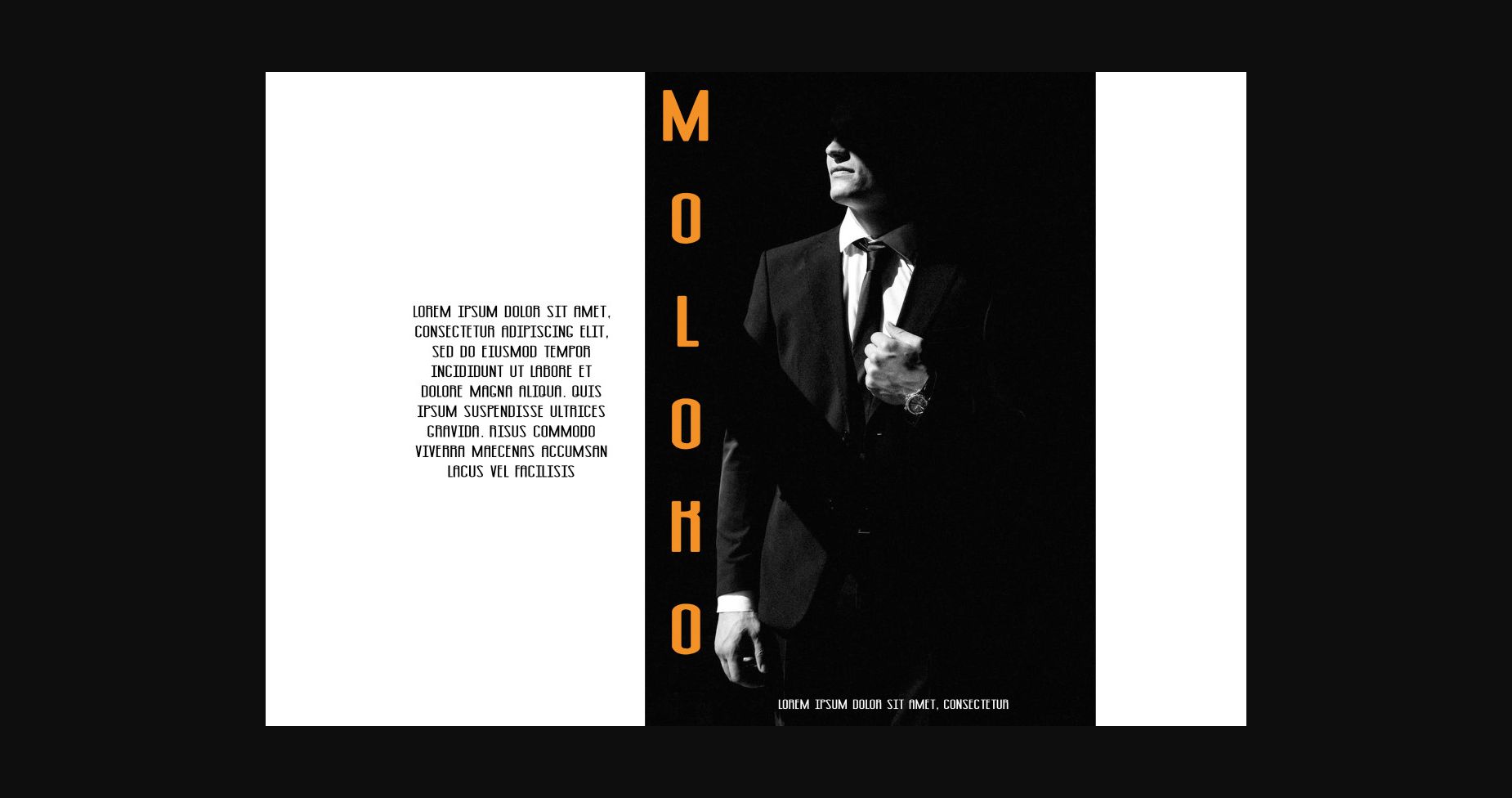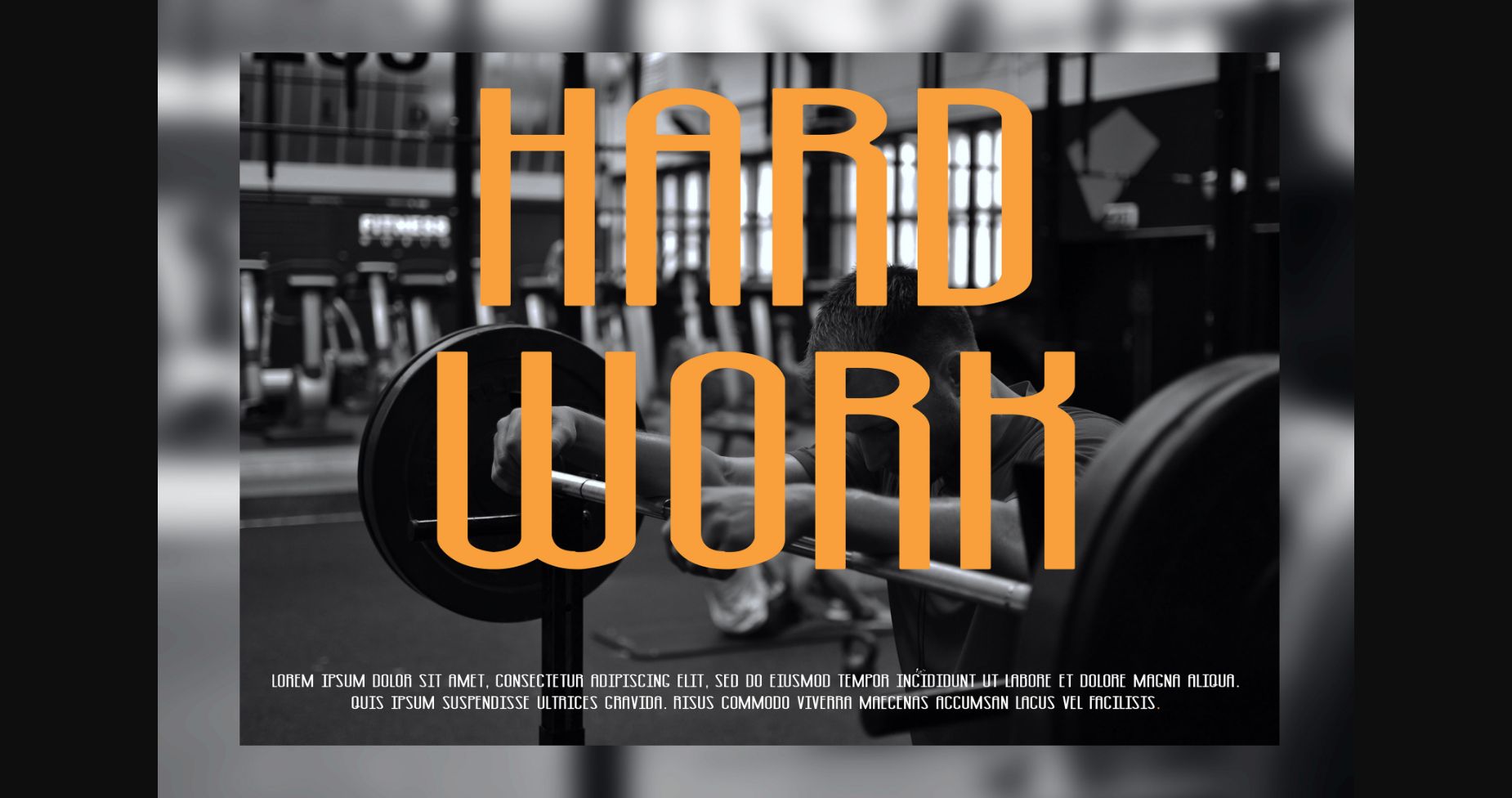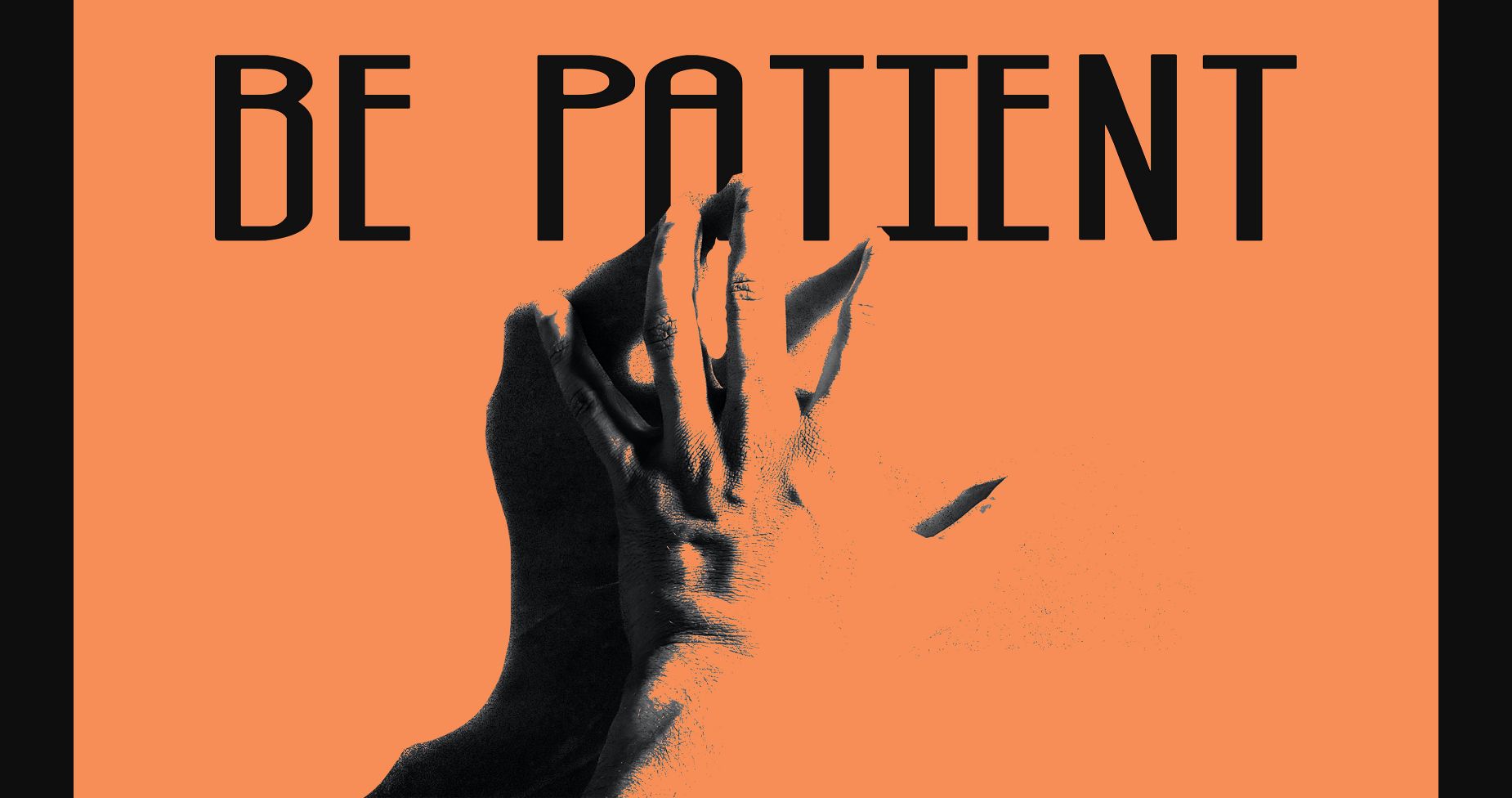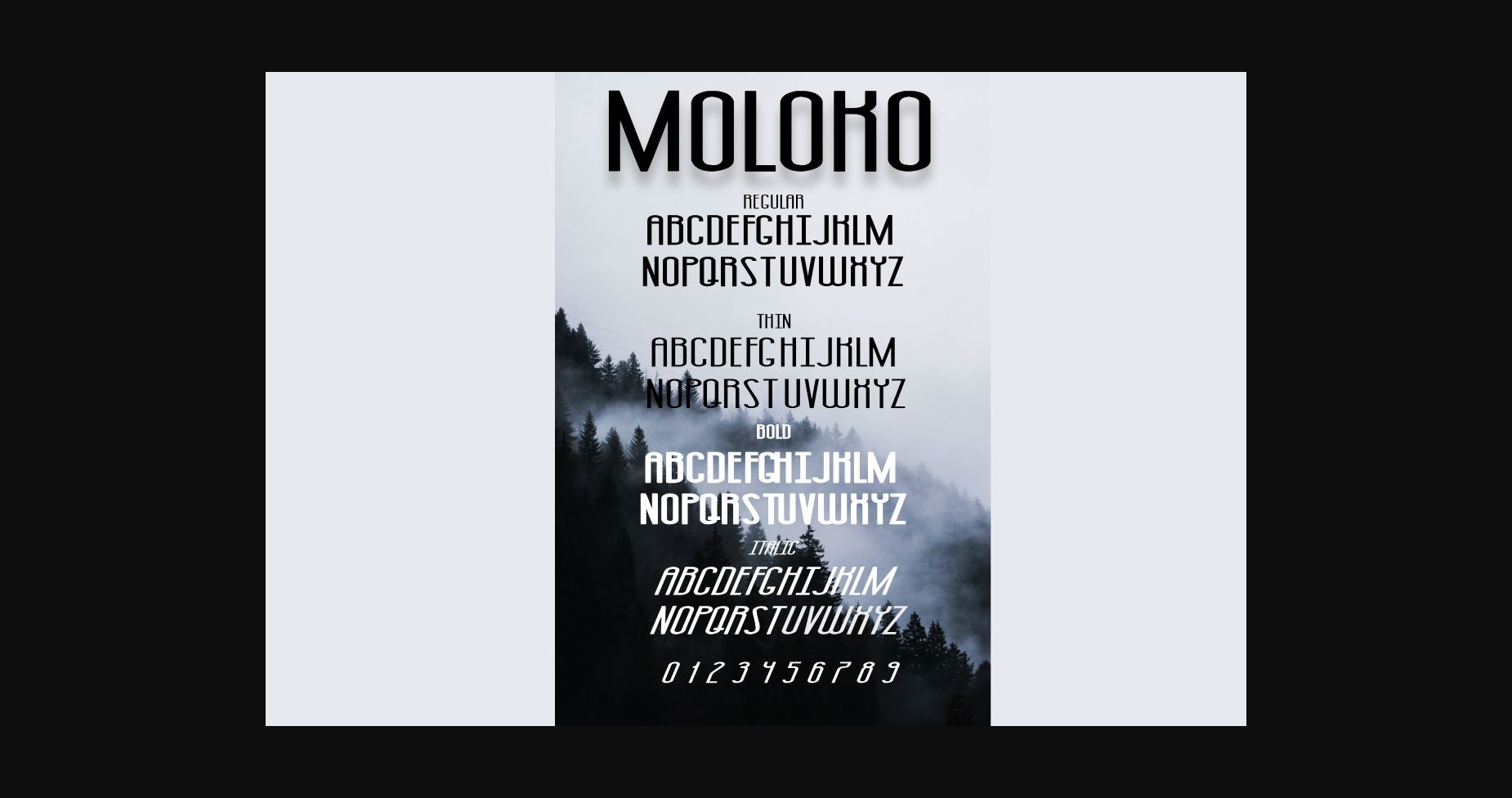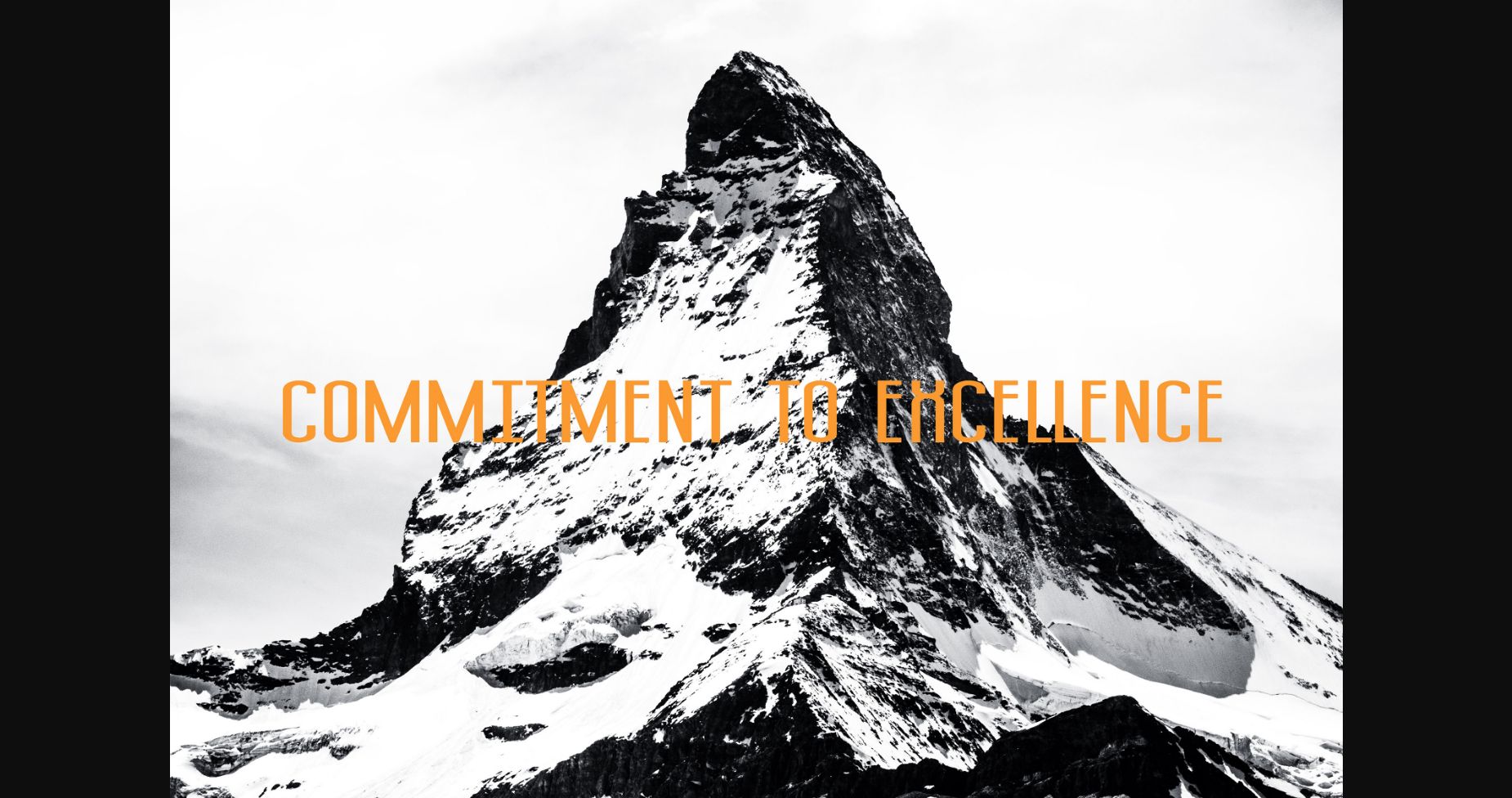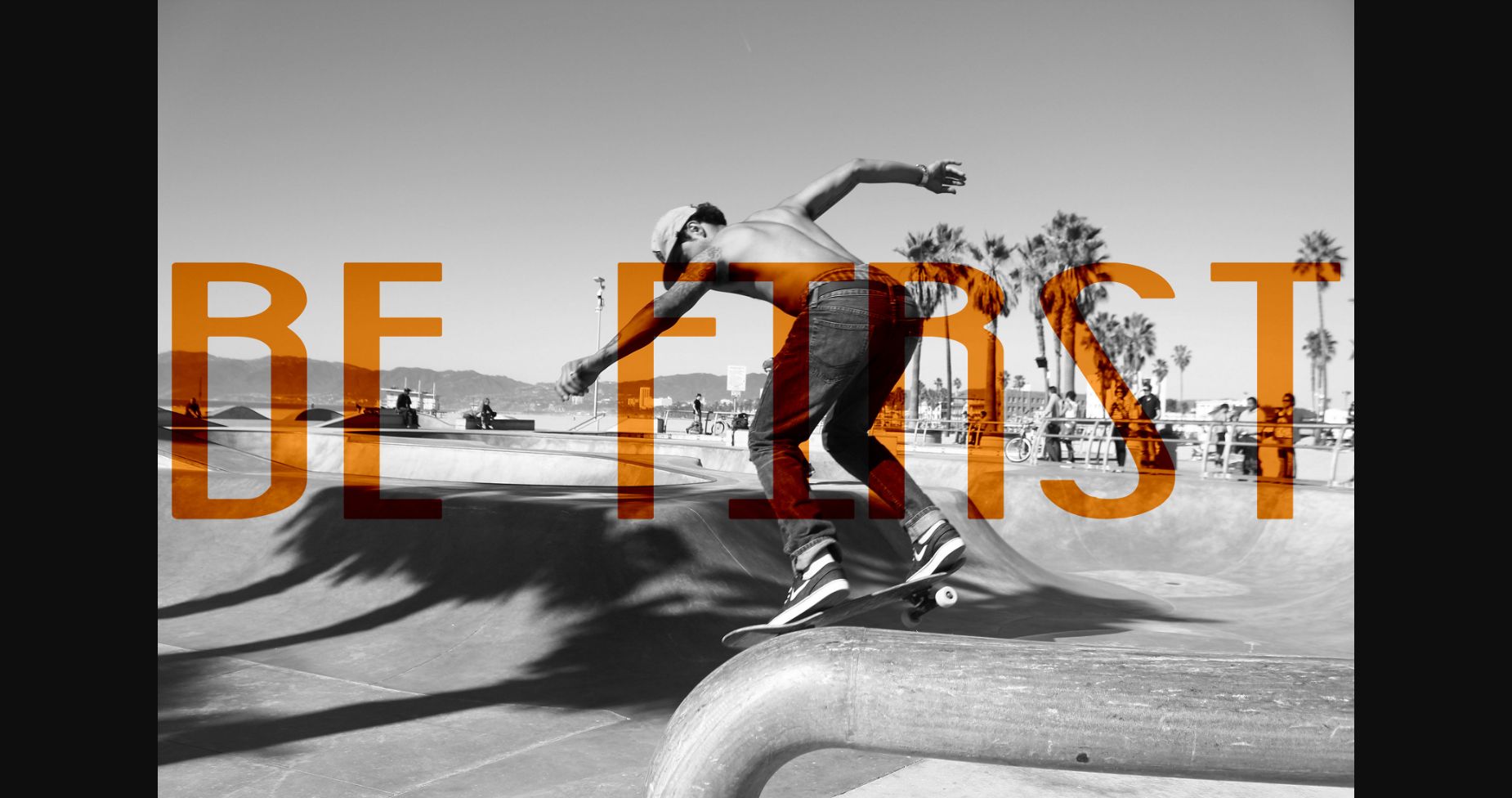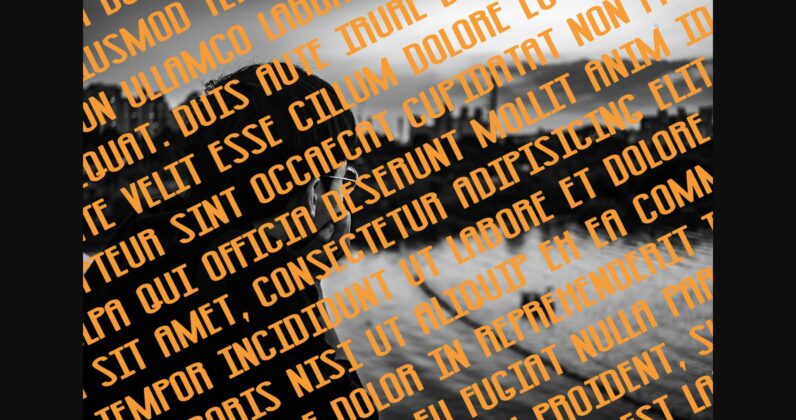
Moloko Font
About Moloko Font
Simple minimal Moloko is a thin and tall sans serif font. This font will look outstanding in a modern context. It can be an easy match to an incredibly large set of projects. Use this font for your designs and explore its endless possibilities.